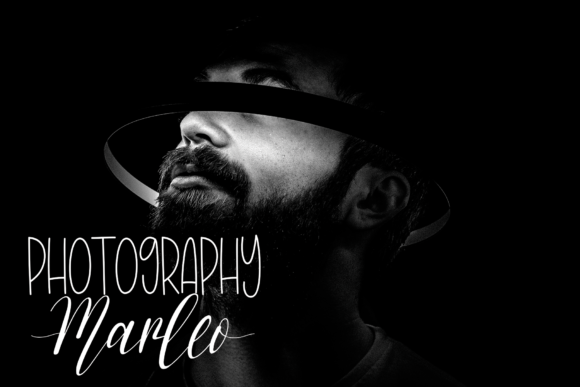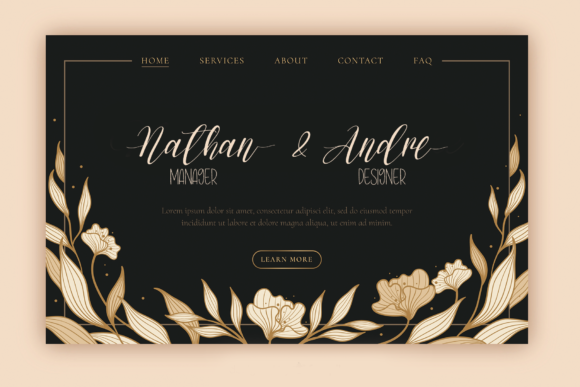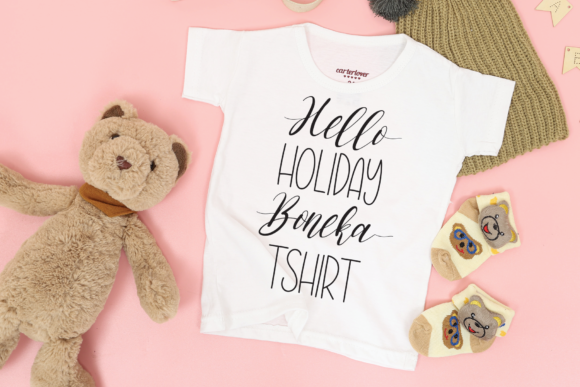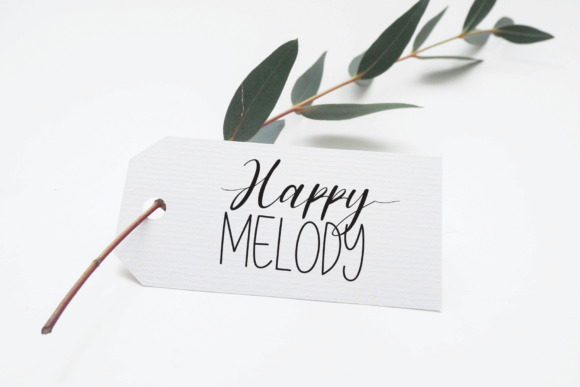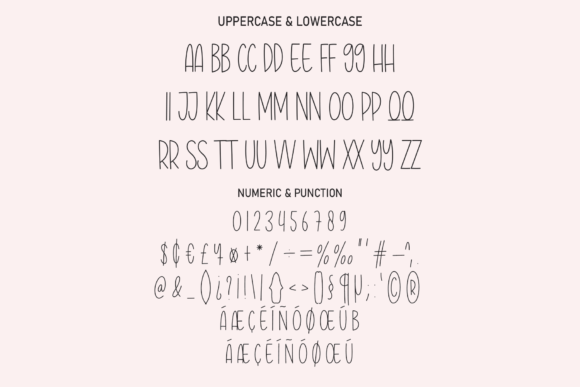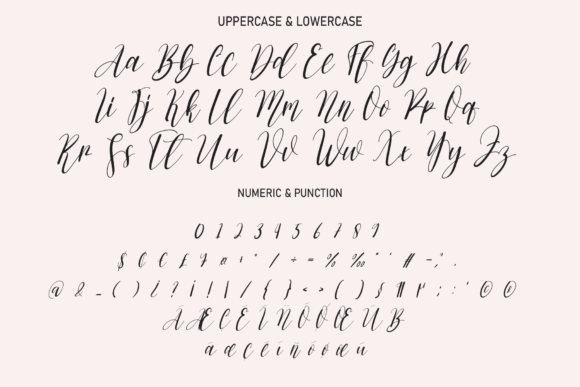
Unleash Your Creativity with Boho Simplestory Font
There’s nothing quite like the thrill of finally finding the perfect font for your latest craft project. You’ve poured over countless options, trying to find the one that captures the essence of your design. And then, like a breath of fresh air, you stumble upon the Boho Simplestory Font – a match made in heaven for your artistic vision.
Designed to complement each other in perfect harmony, the Boho Simplestory Font consists of two beautifully crafted fonts that add a chic and cheery touch to any project. With its PUA encoding, accessing all glyphs and swashes is a breeze, giving you endless possibilities to get creative. Whether you’re a seasoned designer or a crafty enthusiast, the Boho Simplestory Font is an invaluable addition to your toolkit.
- Unique Characteristics: The Boho Simplestory Font features a unique blend of bohemian and minimalist styles, making it perfect for designers who want to add a touch of elegance and sophistication to their projects.
- Script and Upright Styles: This font includes both script and upright styles, allowing designers to choose the perfect style to suit their design needs.
Boho Simplestory Font Review
Overall, I found the Boho Simplestory Font to be a lovely addition to any design project. ✨ Its unique blend of bohemian and minimalist styles makes it perfect for creating visually appealing headers and titles.
The font’s versatility is a major plus, allowing designers to use it in a wide range of contexts, from modern blogs to vintage-inspired websites. ✨ The font’s legibility is also noteworthy, making it easy to read even in smaller font sizes.
- Unique blend of bohemian and minimalist styles
- Highly versatile, suitable for various design contexts
- Excellent legibility, even in smaller font sizes
- May not be suitable for formal or corporate designs
- Some users may find the font too ornate or busy
- Limited font size options, which may require manual adjustments
Overall, I think the Boho Simplestory Font is a solid choice for designers looking to add a touch of personality to their projects. While it may not be suitable for every design context, its unique style and versatility make it a great addition to any font collection.
Boho Simplestory Font is ideal for:
- Designing wedding invitations and stationery.
- Creating bohemian-inspired graphics and illustrations.
- Adding a touch of whimsy and elegance to your designs.
Alternatives to Boho Simplestory Font
Great Vibes is a beautiful, elegant script font that is perfect for creating a romantic and whimsical feel. It is ideal for use in wedding invitations, quotes, and other creative projects where a touch of elegance is needed.
Compared to Boho Simplestory Font, Great Vibes is more elegant and refined, while Boho Simplestory has a more bohemian and eclectic feel.
Dancing Script is a lively and expressive script font that is perfect for creating a playful and energetic feel. It is ideal for use in titles, headings, and other areas where a sense of movement and energy is needed.